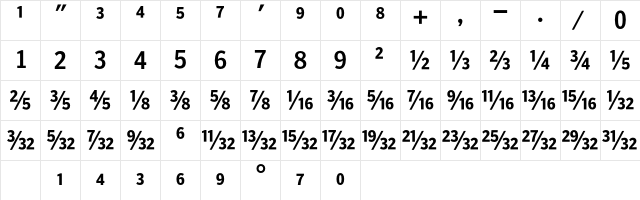
Complete PoynterAgate CondFracTwo glyph index. Displaying only characters natively supported by PoynterAgate CondFracTwo font.
PoynterAgate is a composed and adaptable typeface that performs quietly and consistently across a wide range of design contexts. Its narrow stance lets it pack a punch even in space-constrained designs.